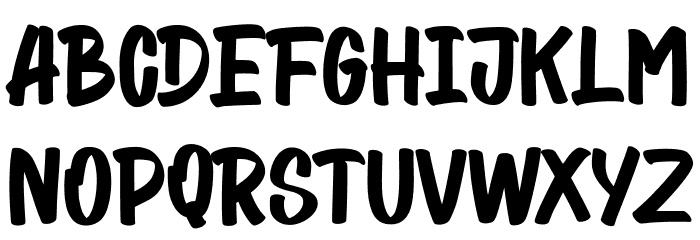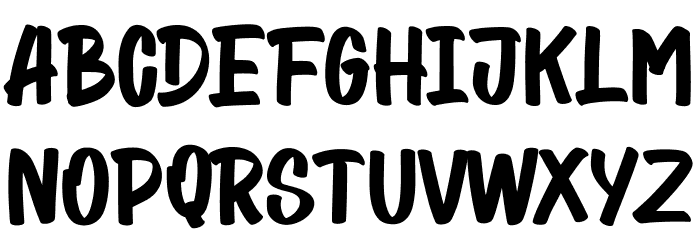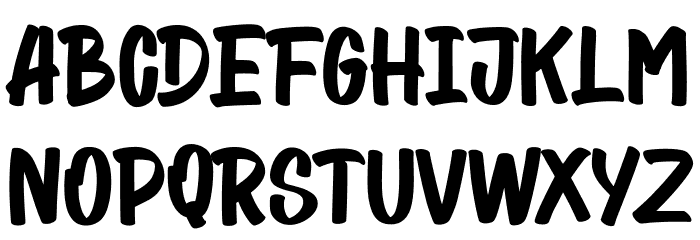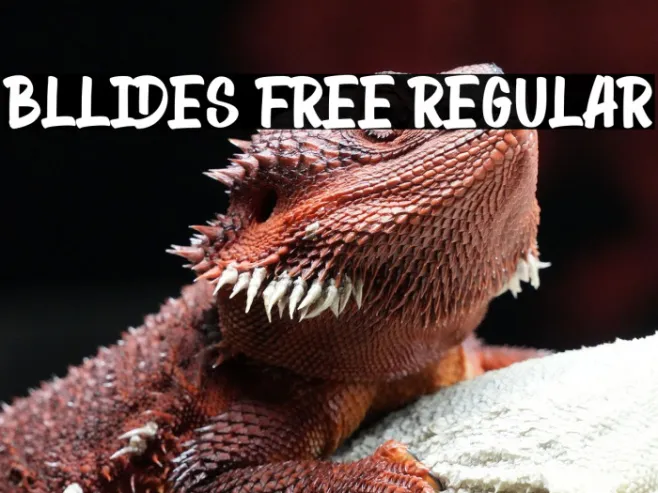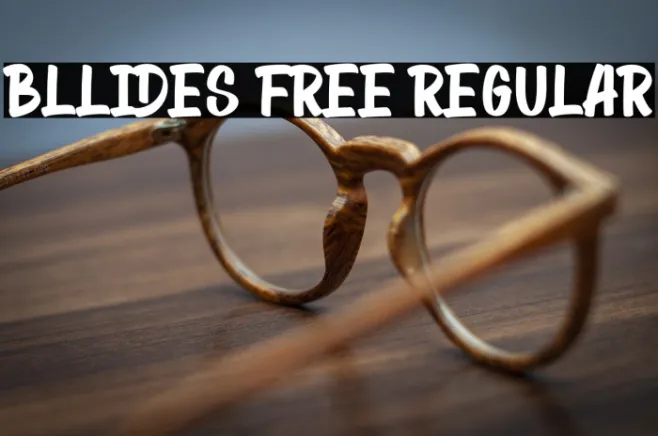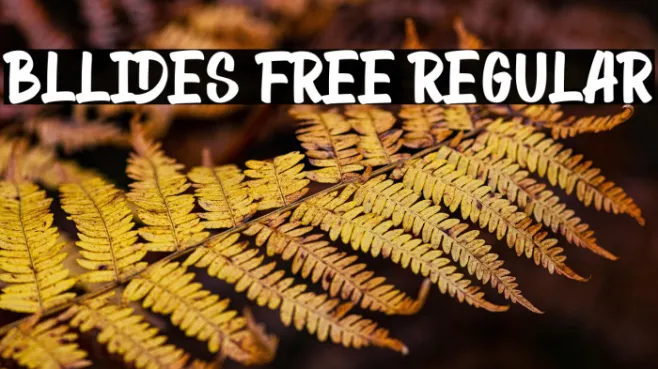
Bllides Free Regular Font
This font features a bold and playful style with a handwritten appearance. The characters are thick and rounded, giving them a friendly and approachable look. The uppercase letters are consistent in height, while the lowercase letters maintain a uniform baseline, contributing to a cohesive visual flow. The strokes are smooth and slightly irregular, adding a touch of whimsy. This font is highly legible, making it suitable for various design applications where a casual and fun aesthetic is desired.
A bold, playful handwritten font with smooth, rounded characters.
- Proposed Projects: Ideal for children's books, playful branding, greeting cards, and social media graphics.
- Category: Handwritten
- Overall Style: Playful